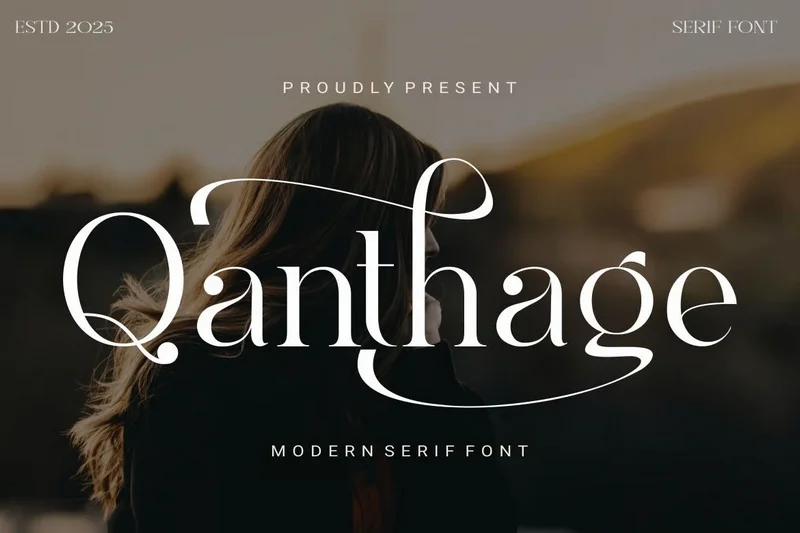
Qanthage – Modern Serif
Introducing our new product Qanthage – Modern Serif
Qanthage is a typeface that comes in a variety of styles, featuring high contrast, sharp details, and classic charm. This typeface can be easily adapted for a variety of creative projects. It provides an elegant and professional look for any project.
Can be used for:
Branding & visual identity
Product packaging & labels
Invitations & stationery
Posters, flyers & marketing materials
Projects that require an elegant and prestigious touch